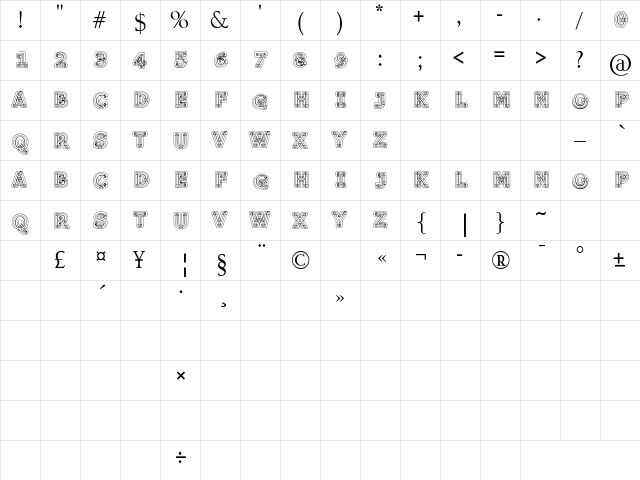
Geometri Outline Regular
Design Context for Geometri Outline Typeface
Geometri Outline brings ornamental detail and strong personality to headlines and identities, where visual impact matters more than quiet functionality.
Font Pairing: Pair with a clean neutral sans-serif for body copy to let Geometri Outline's character lead without overwhelming the composition.
Pro Tip: Use Geometri Outline exclusively at display sizes — it was designed to be seen, not read at length. Let a neutral companion handle body copy.